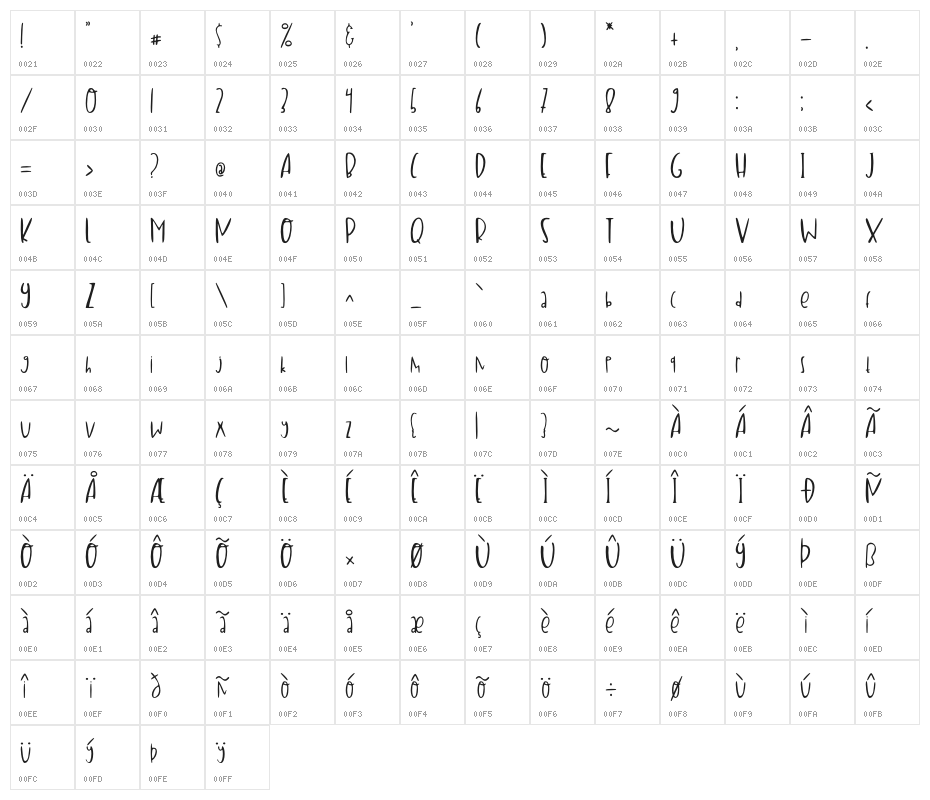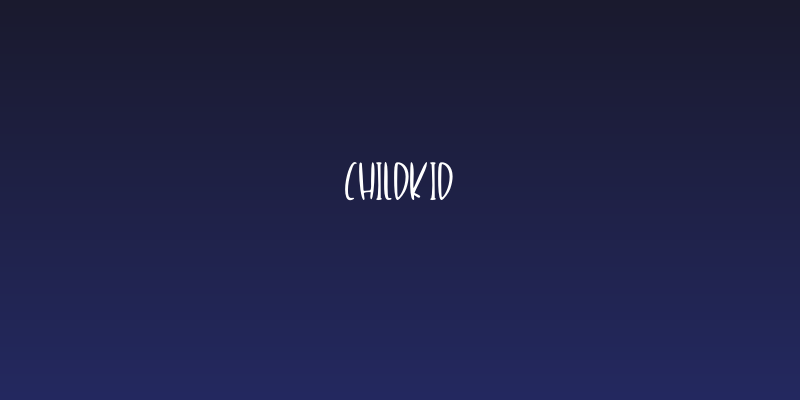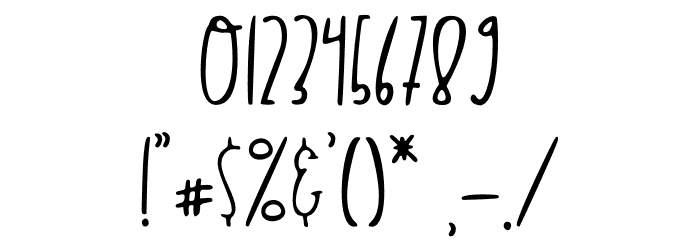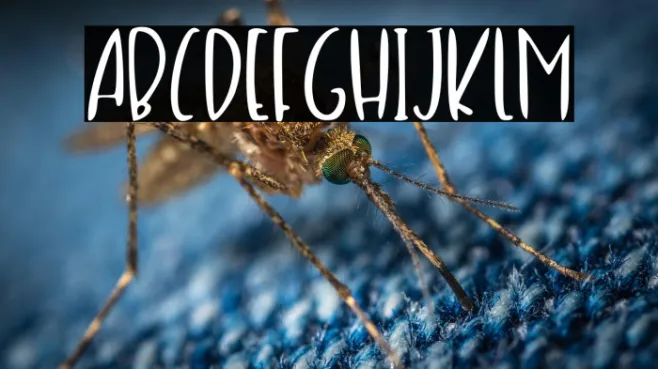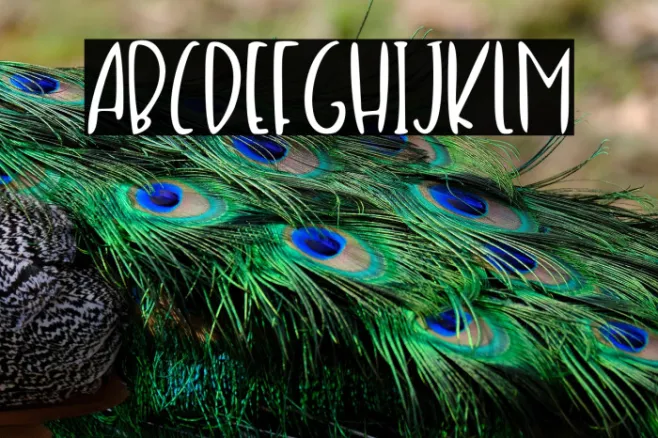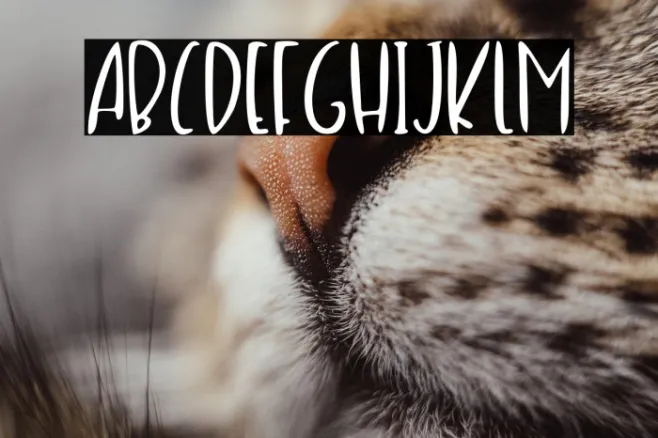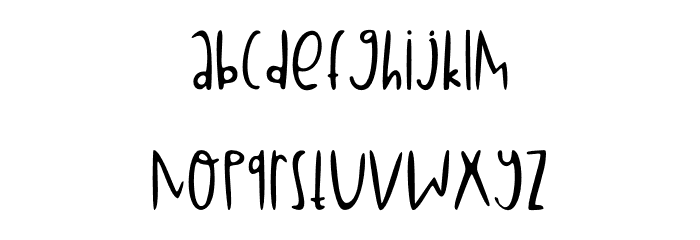
Childkid Font
Childkid Description
This playful and whimsical font features tall, narrow characters with a hand-drawn appearance. The strokes are uneven, adding a casual and friendly vibe. The uppercase letters are slightly taller than the lowercase, maintaining a consistent style throughout. Numbers and special characters follow the same playful design, making them suitable for creative projects. The font's unique style is ideal for capturing attention and conveying a sense of fun and creativity.